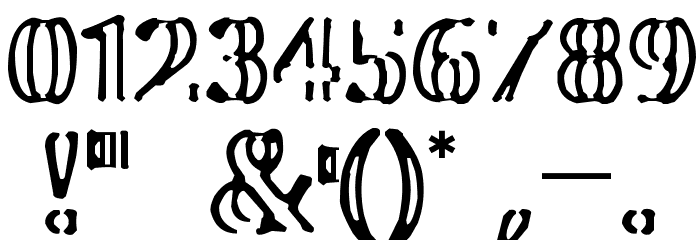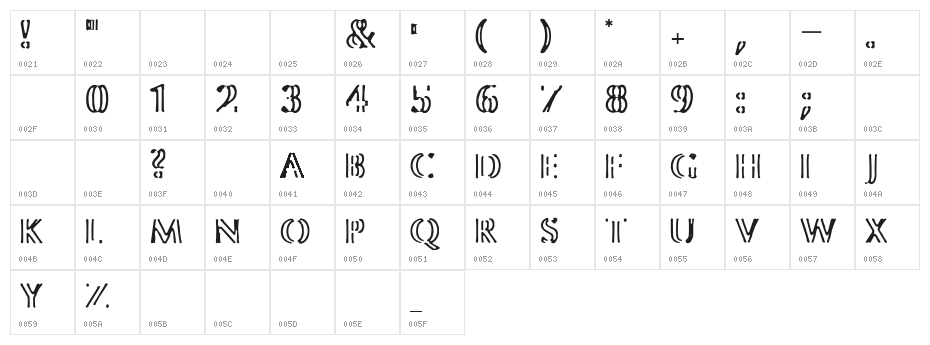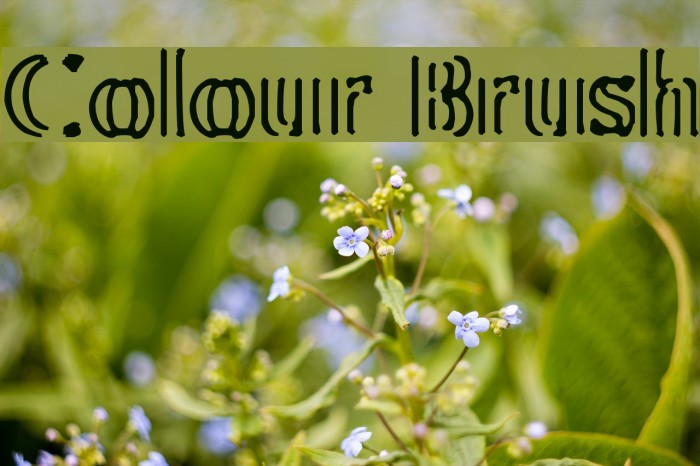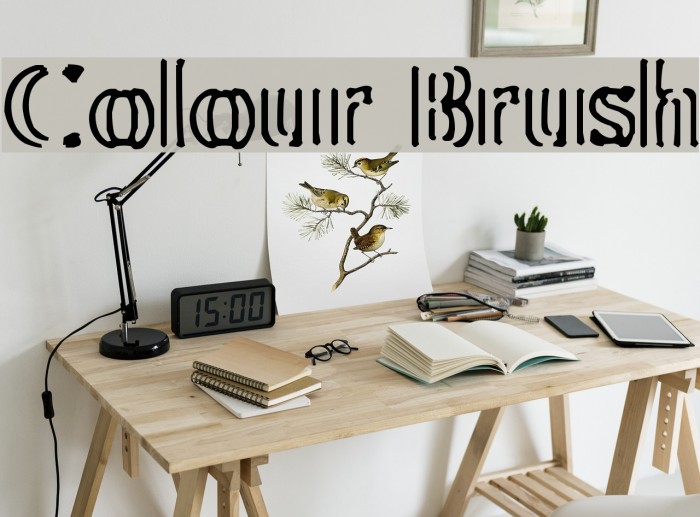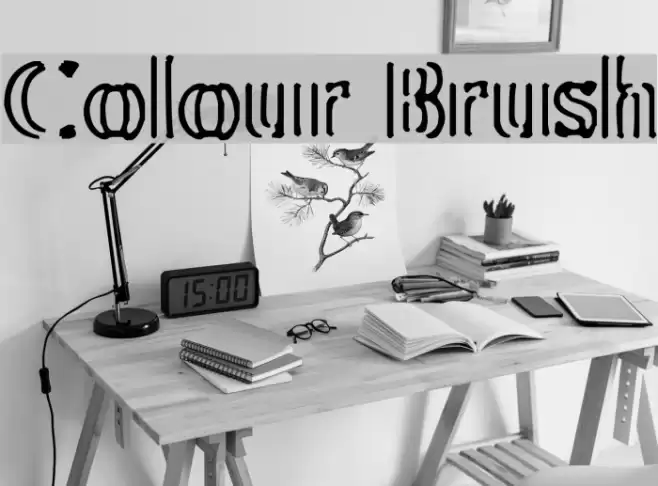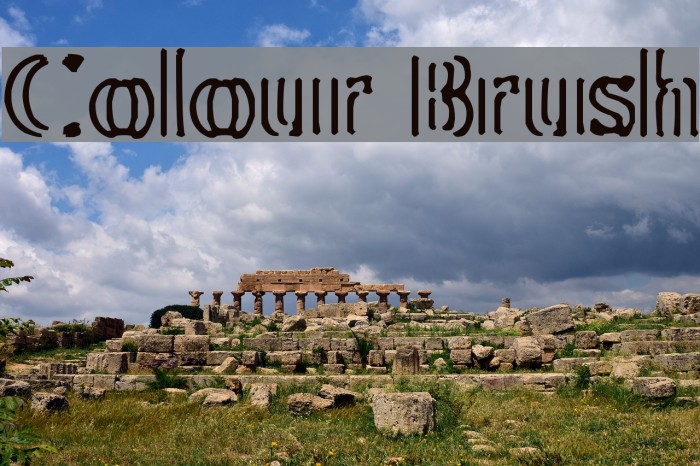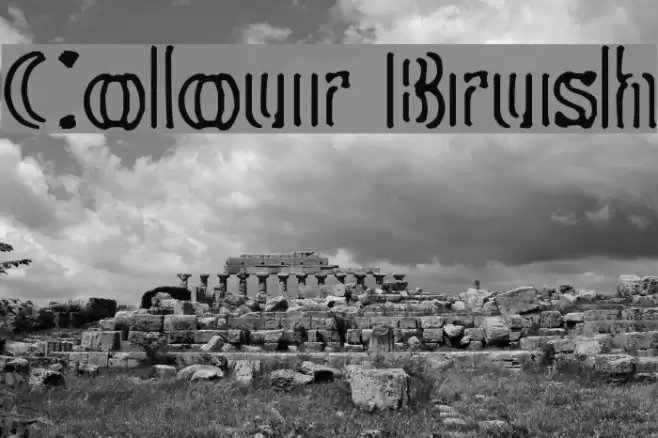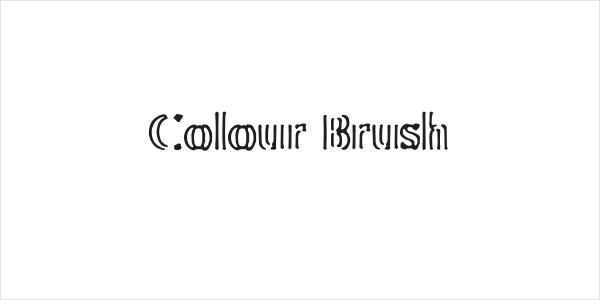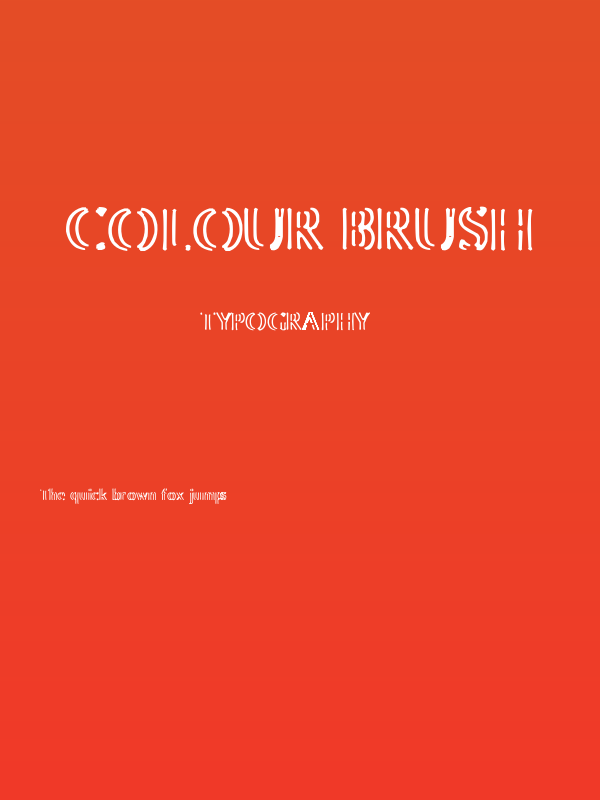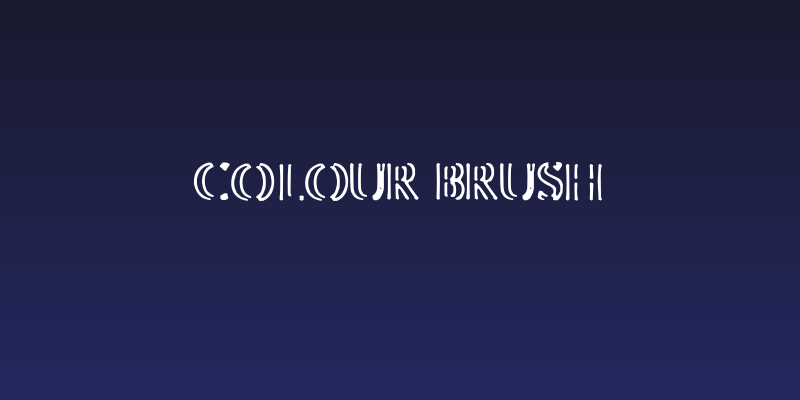
Colour Brush Font
Colour Brush Description
This font exhibits a unique and artistic style, characterized by its bold, brush-like strokes that create a dynamic and expressive appearance. The uppercase and lowercase letters share a consistent design, with a slightly distressed look that adds to its handcrafted feel. The numbers and special characters maintain this aesthetic, ensuring a cohesive look across all glyphs. The font's irregular edges and varying stroke widths give it a lively and energetic vibe, making it stand out in any design. Its distinctive style is reminiscent of graffiti or street art, offering a modern twist on traditional calligraphy.